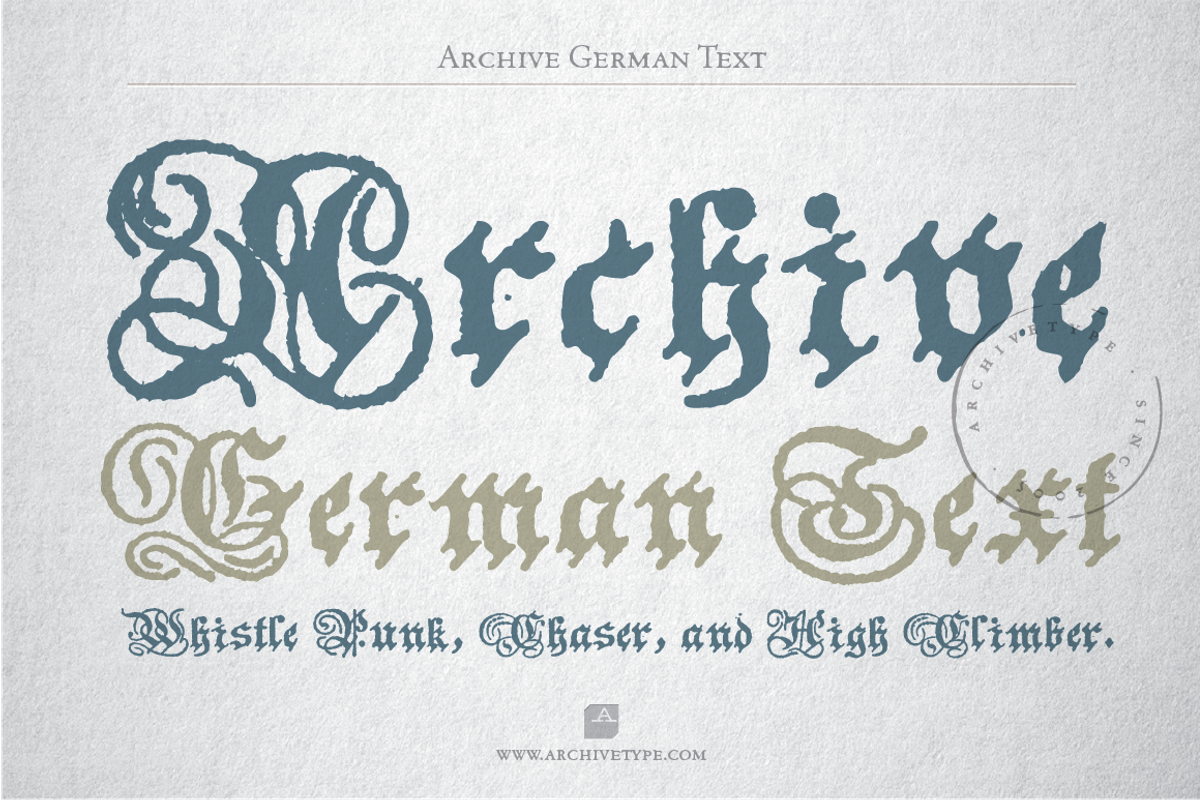
Please note, to use this font for commercial purposes, you must purchase the full version. Archive German Text is a classic and timeless font that evokes the traditional elegance of historical German script. With its intricate letterforms and historical charm, this font is perfect for projects that require a vintage or scholarly feel. Whether you're working on a book cover, branding, invitations, or any other creative design that demands a touch of sophistication, Archive German Text adds a refined, old-world style to your work. Test it out and enjoy free download access for personal use. Experience the historical beauty of Archive German Text Font Free Download before purchasing the commercial license. Add a touch of vintage elegance to your designs with Archive German Text.